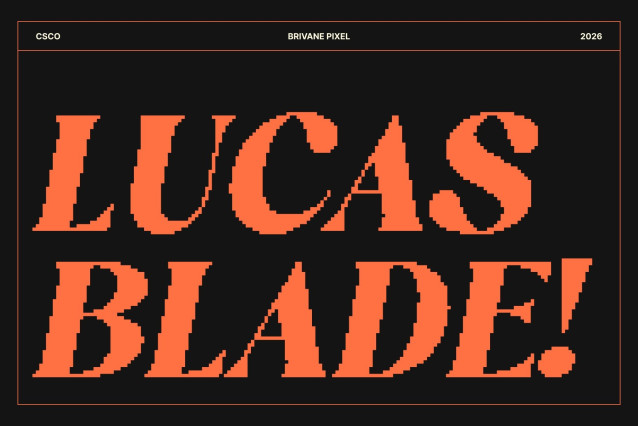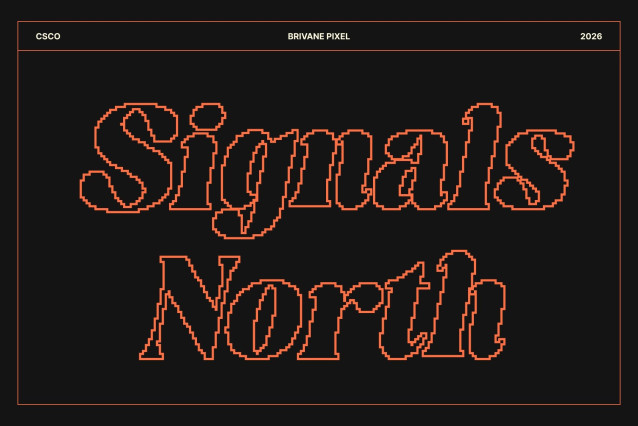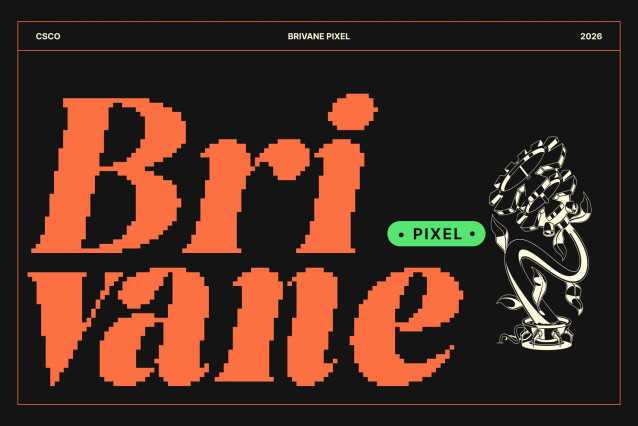
Brivane Pixel Font
Brivane Pixel Font – This is a bold serif font that combines thick, confident strokes with a distinctive pixel character. Its modern structure is infused with retro-inspired aesthetics, creating a powerful visual presence that feels both nostalgic and contemporary. This balance makes the font ideal for bold statements across digital and print media.
Built for Posters and Logos
Designed to stand out, this font excels in posters, logos, headlines, and display compositions. Its heavy weight ensures maximum impact, while the pixel detailing adds texture and personality, helping designs capture attention instantly and remain visually memorable.
Retro Spirit with Modern Strength
This font brings a nostalgic tone rooted in classic graphic styles, enhanced by a digital pixel twist. This fusion allows designers to evoke vintage charm without sacrificing modern clarity, making it perfect for projects that celebrate the past while embracing current design trends.
Versatile and Creative Expression
From branding and packaging to editorial layouts and promotional visuals, adapts effortlessly to creative needs. Its bold serif form, retro vibe, and pixel-enhanced character deliver a unique and dynamic typographic voice ensuring every project feels expressive, confident, and visually compelling.